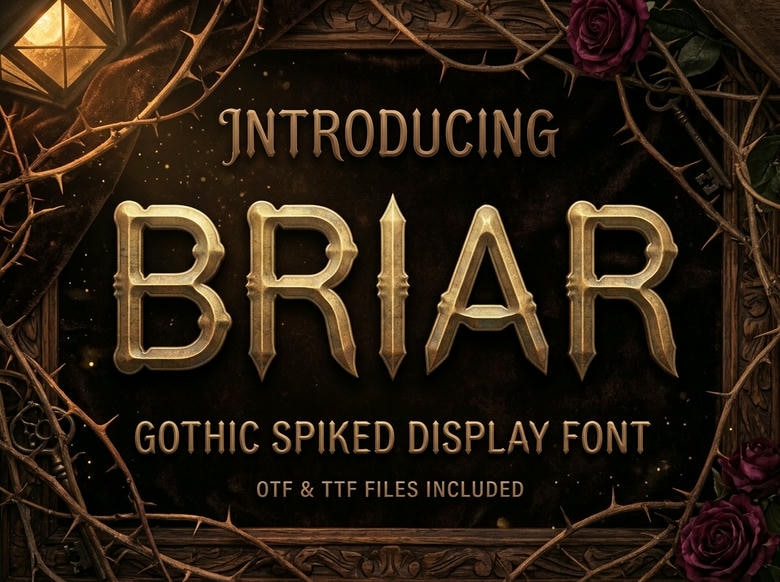
Briar Font
Briar is a gothic display font with spiked details. The letters have chiseled metallic textures, sharp thorns, and dramatic spikes, combining dark fairytale fantasy with a medieval look.
Briar works well for dark fantasy book titles, gothic romance covers, gaming logos, Halloween posters, potion labels, or heavy metal merchandise. Its bold, sharp-edged style helps any design stand out.